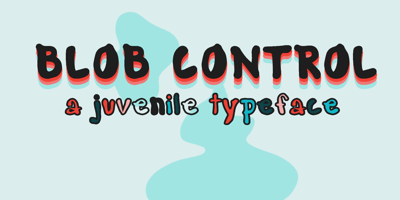
Blob Control
Blob Control font
Blob Control Font Family was designed by Rachel McBride and published by Rachel McBride Creative. Blob Control contains 7 styles and family package options. Blob Control is the perfect typeface to use for any project that needs a youthful or juvenile flair. It’s inspired by the messy, eccentric nature of adolescence. It comes with seven fonts and weights, so it can work with any project it’s needed in!It comes equipped with over 400 characters to support most western languages!Great for use on children’s books, toys, handwritten projects, retro projects, websites, and animations/cartoons.